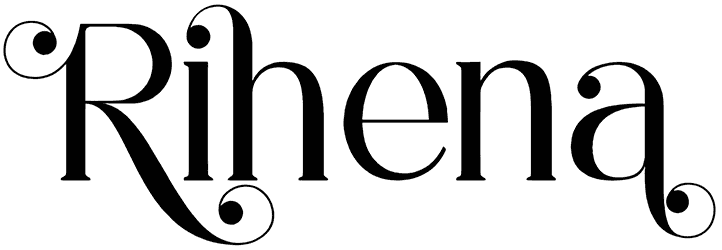
Rihena Font
Simple lettering is always a popular and confident choice for many layouts, and if you are interested in these styles, we offer you this unique serif font that can provide your intended form in a noble mood. Rihena font’s characters have modern and special faces, and you can count on it to convey an original feeling. Use this timeless basic font and make your design unforgettable.